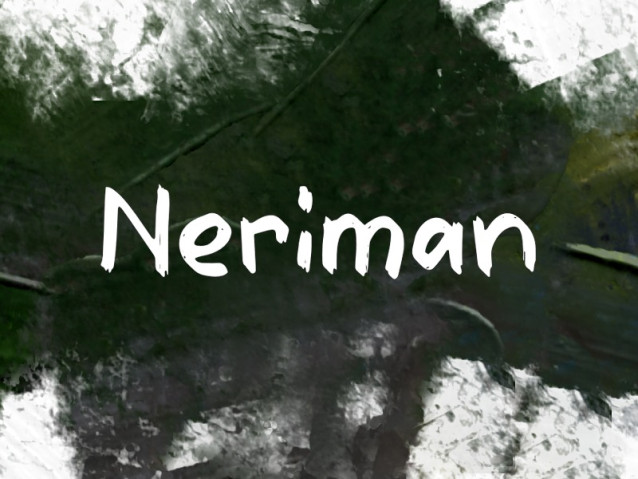
Neriman Font
Neriman Font is a simple and modern display font suitable for quotes, logos, headings, titles, and many more. Use it on any of your creative projects, and your designs will become outstanding!